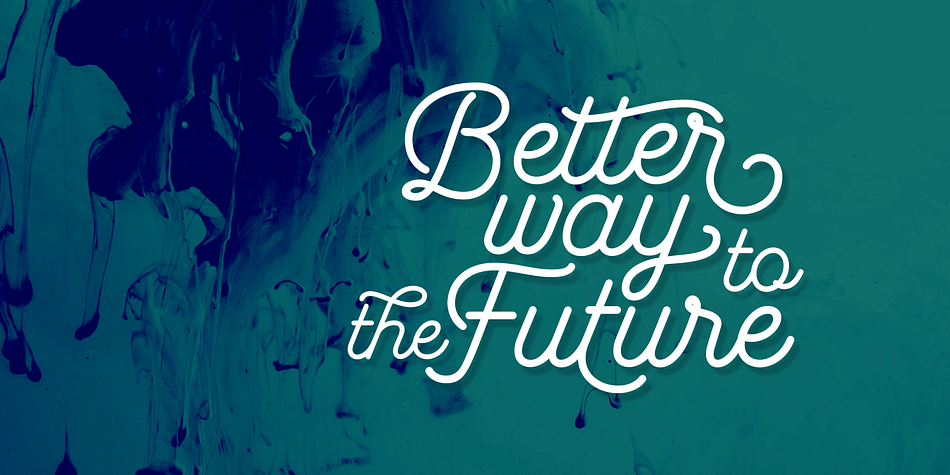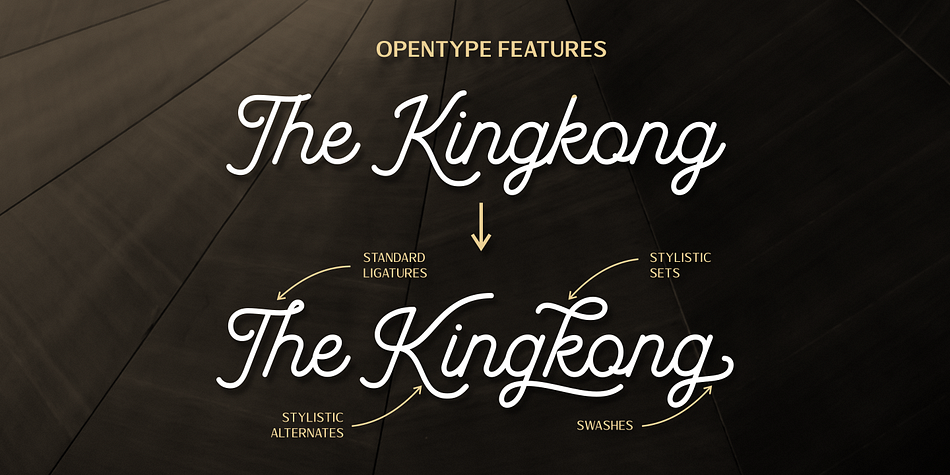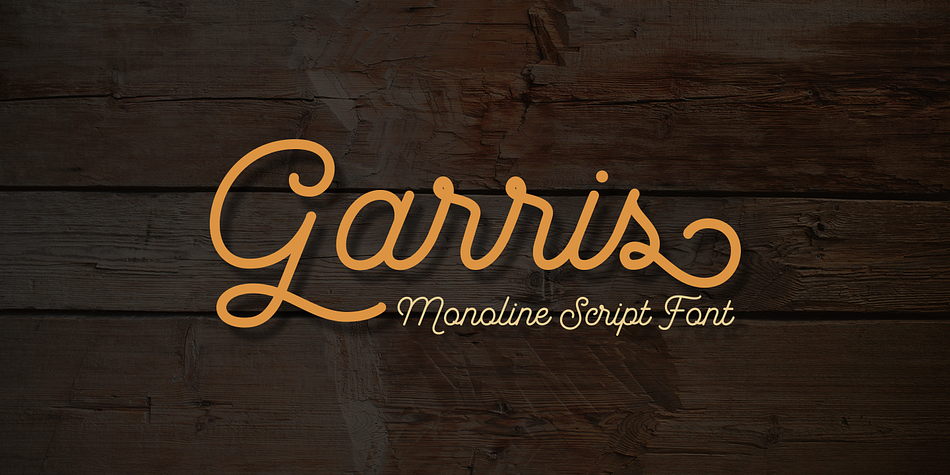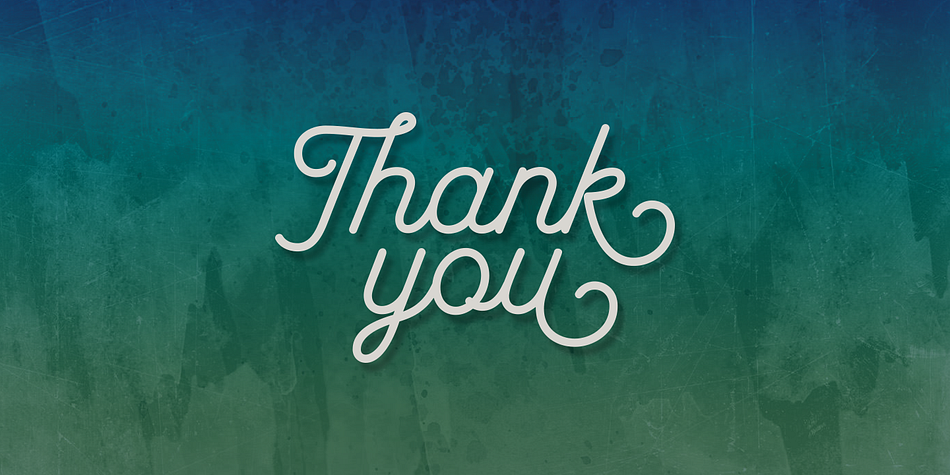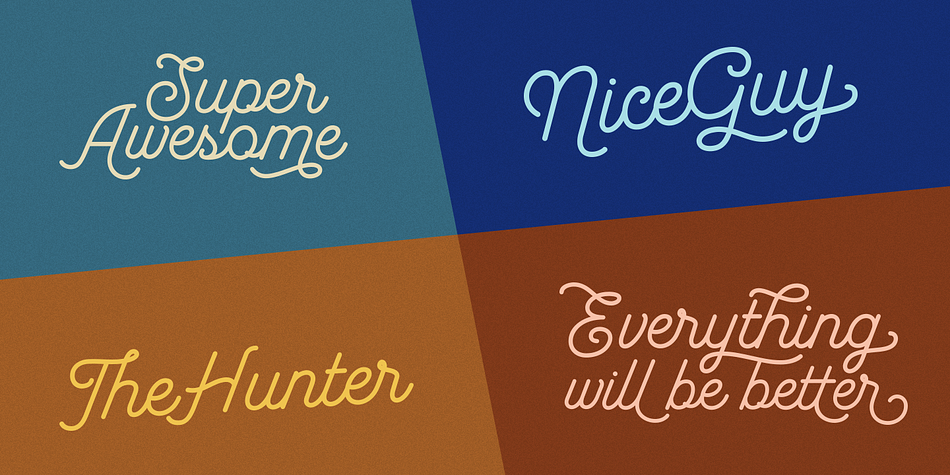
Garris is a script font family. This typeface has two styles and was published by Locomotype.
Garris is a monoline script font with an awesome opentype features such as ligatures, stylistic alternates, swashes, stylistic set, initial and terminal form, as well as multilingual support and PUA encoded. Available in light and regular version as a choice to mix and match your design.
Garris comes with multiple alternates that will make your words look like a custom lettering. Suitable for logotype, branding, headline, poster, gretting card, quotes etc.